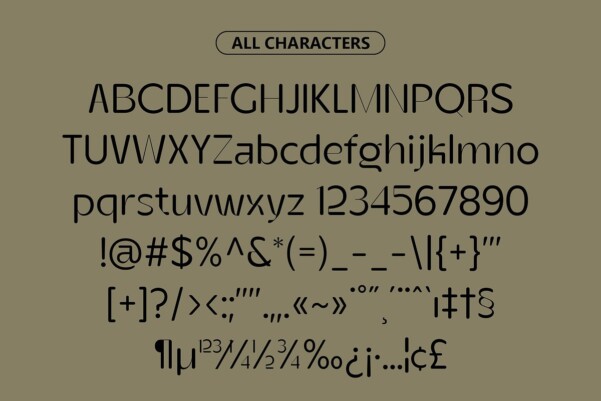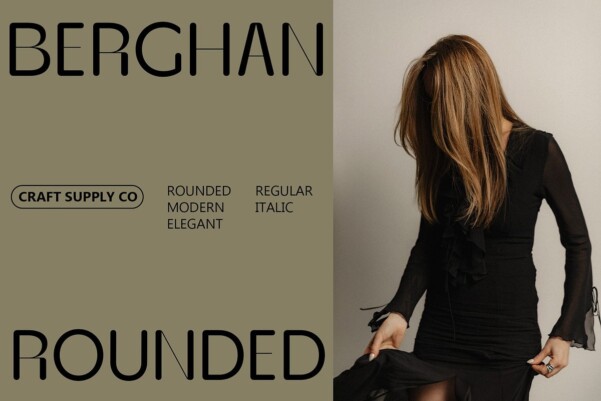
Berghan Rounded Font
Designer: Craft Supply Co.
Berghan Rounded Font: A Sleek Modern Typeface. Sleek and Contemporary Berghan Rounded presents a sleek sans serif design with a contemporary flair. Its clean lines and rounded stem endings exude modernity and sophistication.
High Contrast for Impact With its high contrast between thick and thin strokes, This font commands attention and makes a bold statement in any design project. The contrast adds visual interest and captivates the viewer’s eye.
Rounded Stem Endings The rounded stem endings of This font soften its overall appearance, giving it a touch of warmth and friendliness. This subtle detail enhances readability and makes the font approachable.
Versatile Application This font versatile nature allows it to be used across various design contexts, from branding and advertising to web design and editorial projects. Its modern aesthetic and rounded features make it suitable for a wide range of applications.
Modern Elegance This font embodies the essence of modern elegance with its sleek design, high contrast, and rounded stem endings. Whether used for headlines, body text, or digital interfaces, it brings a contemporary touch to any project, ensuring clarity, impact, and visual appeal.